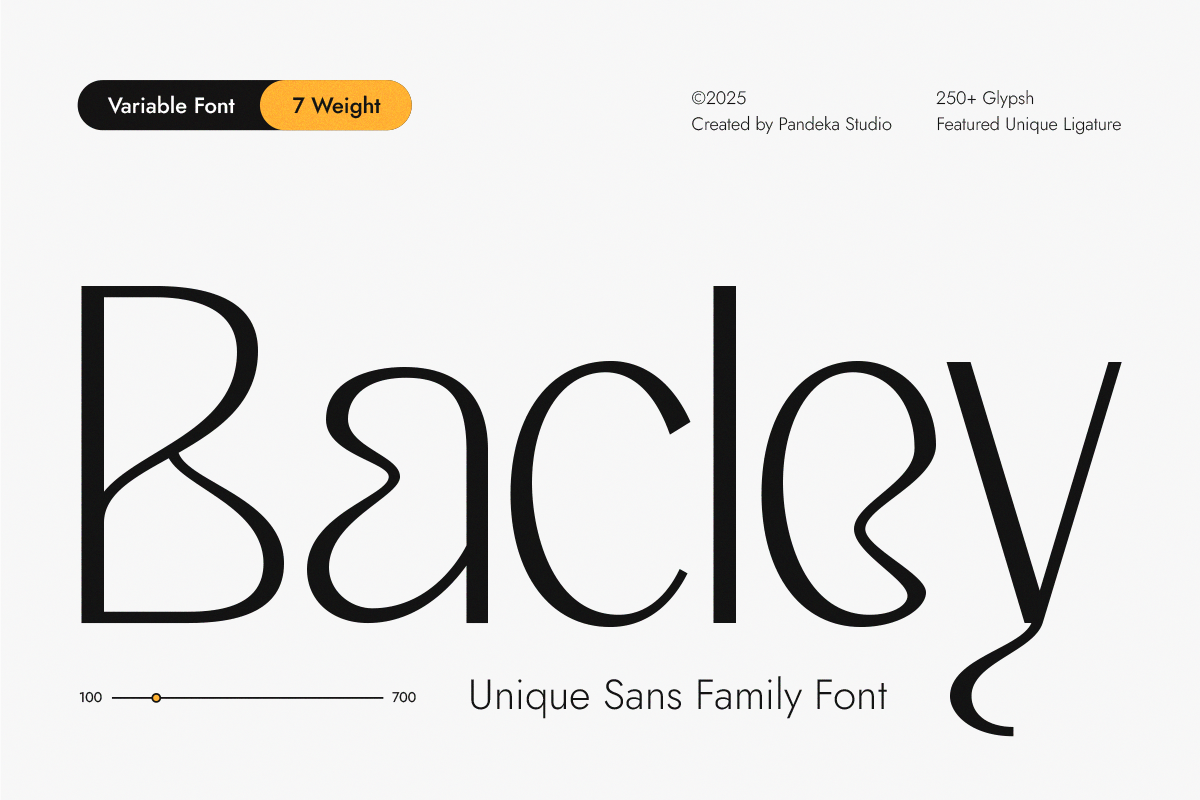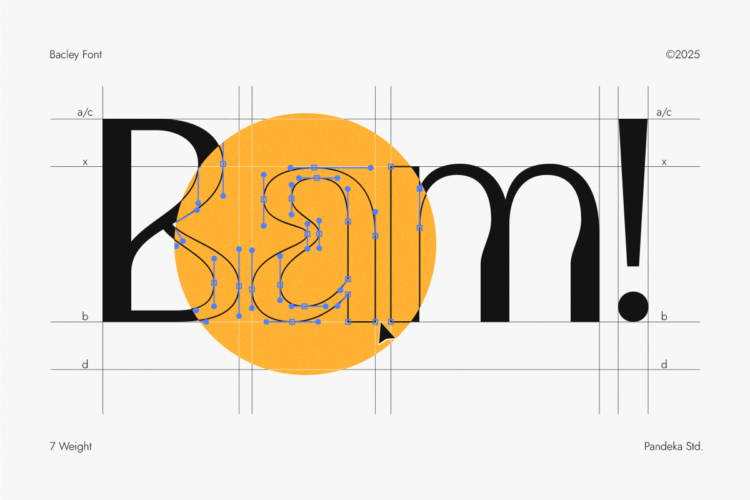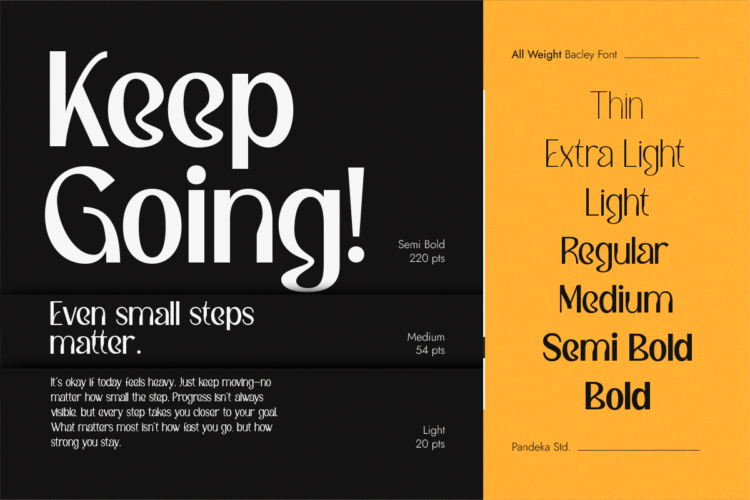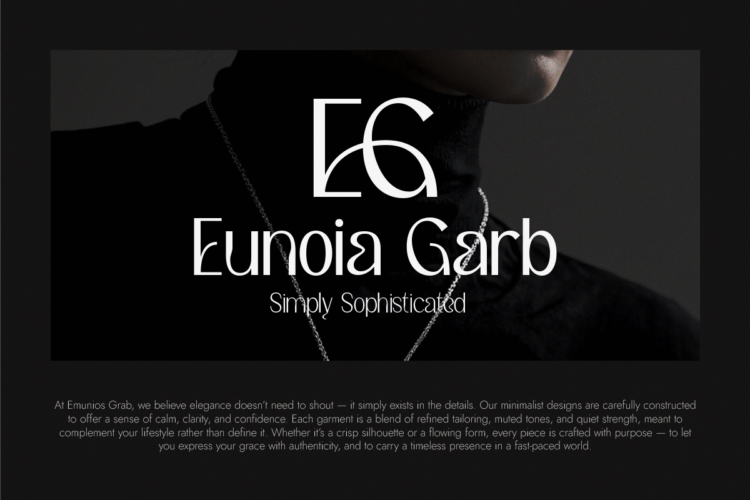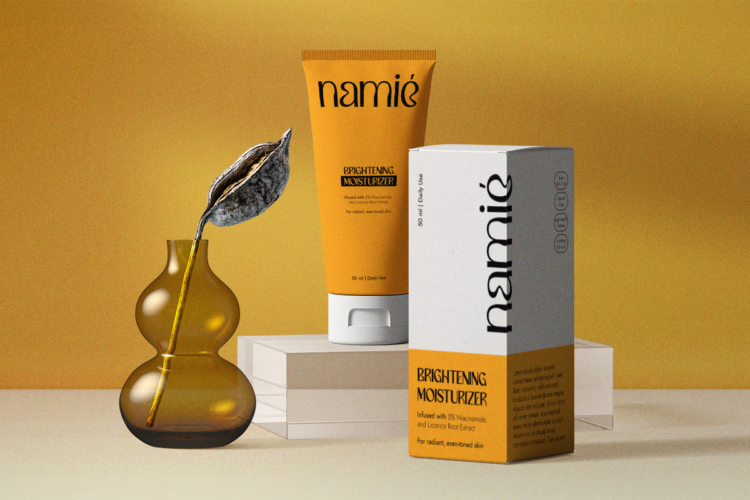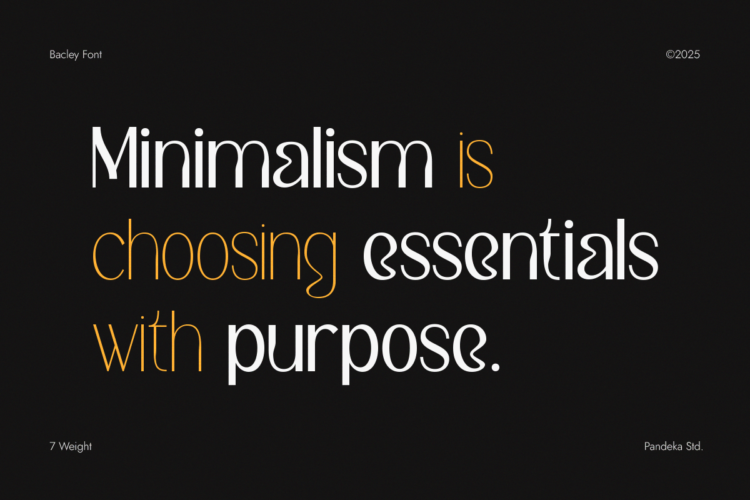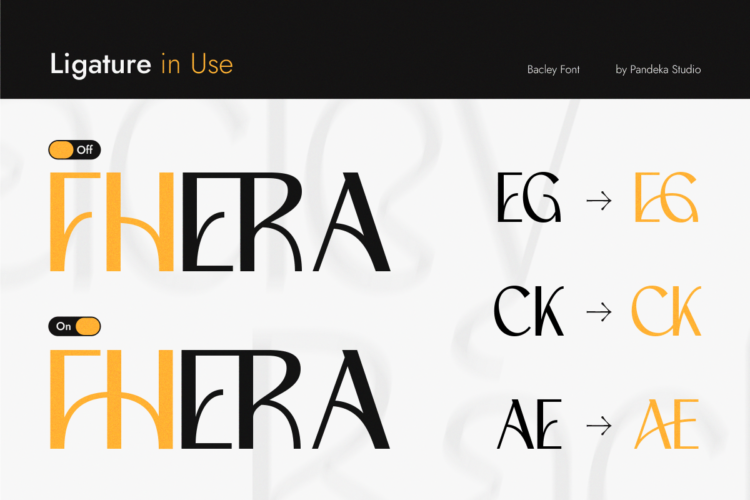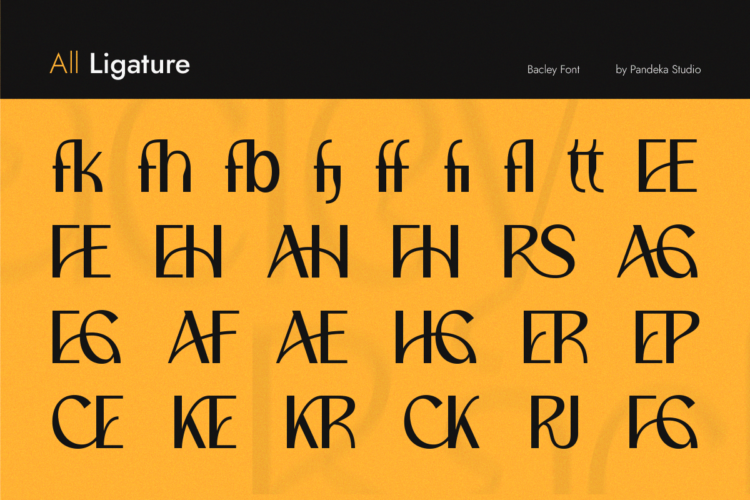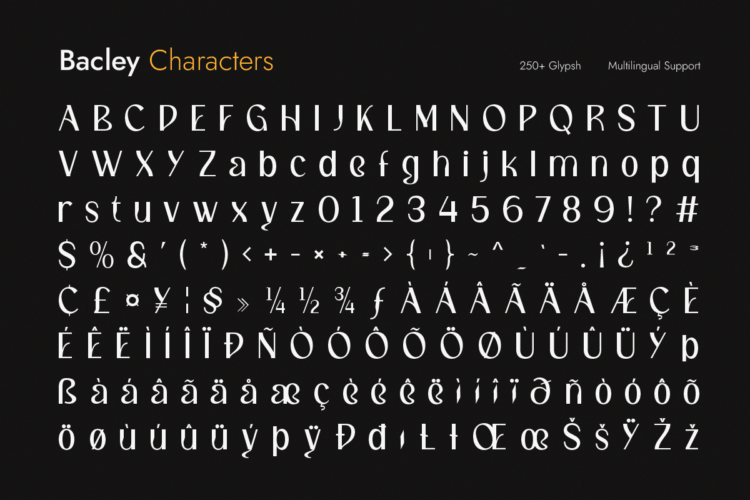
Bacley Thin
Bacley Extra Light
Bacley Light
Bacley Regular
Bacley Medium
Bacley Semi Bold
Bacley Bold
Bacley is a modern sans-serif font family that fuses minimalist structure with experimental style. Featuring 7 font styles—Thin, Extra Light, Light, Regular, Medium, Semi Bold, and Bold—it offers versatile solutions for both display and text applications. Each weight preserves Bacley’s clean geometry and elegant uniqueness while offering flexibility across branding, editorial, web, and packaging design.
What sets Bacley apart is its smooth balance between aesthetic simplicity and quirky character. With distinctive ligatures and stylistic alternates, Bacley is perfect for modern creatives who want their typography to feel bold, fresh, and functional without being overly complex.
• 7 Styles: Thin, Extra Light, Light, Regular, Medium, Semi Bold, and Bold
• Full Character Set: uppercase, lowercase, numbers, symbols, punctuation and ligature
• 20+ Ligatures and alternates
Bacley – Modern Elegant Sans